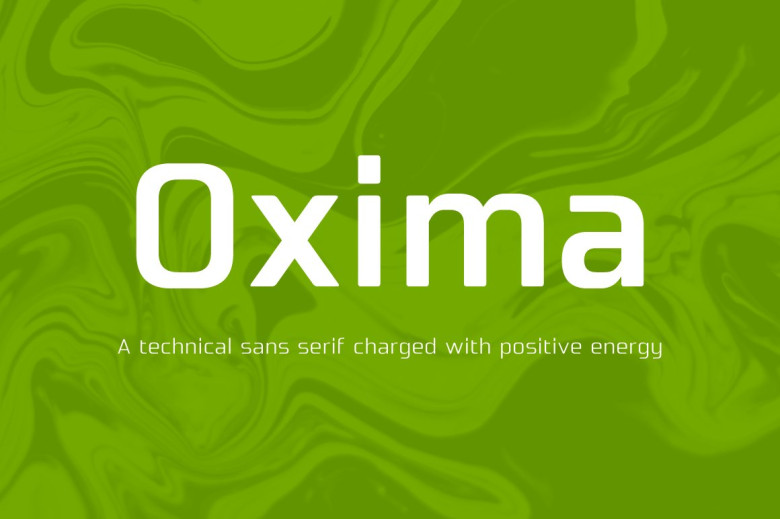
Oxima Font
Oxima font family has been designed for Graviton Font Foundry by Pablo Balcells in 2021. specifically targeting contemporary and futuristic projects. It features technical sans serif typeface with rounded ends for an appealing combination of solid general aesthetics and softly elaborated details.
Robust yet industrial forms make this font perfect for contemporary as well as futuristic endeavors; headlines, body text and everything in-between can use this font family easily.
Oxima consists of 8 styles, each containing small caps and glyph coverage for several languages.
Oxima Sans Serif Font Family